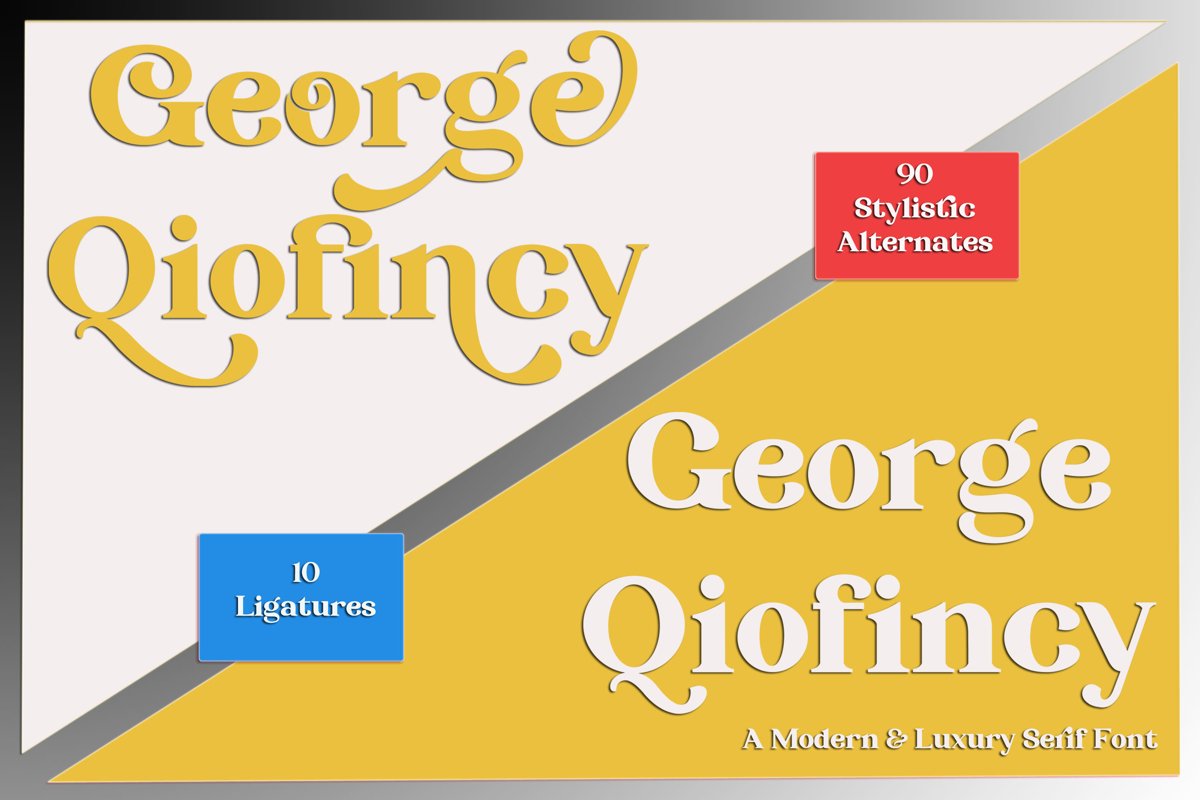
George Qiofincy
Now present "George Qiofincy" Modern and beautiful design, making this font very flexible, you can access a selection of letters that can be accessed on the Open Type feature. Fall in love by inspiring and engaging to create beautiful wedding invitations, beautiful artwork, attractive social media posts, logos, and funny greeting cards. This font is PUA encoded which means you can access all glyphs with a simple and easy curve.